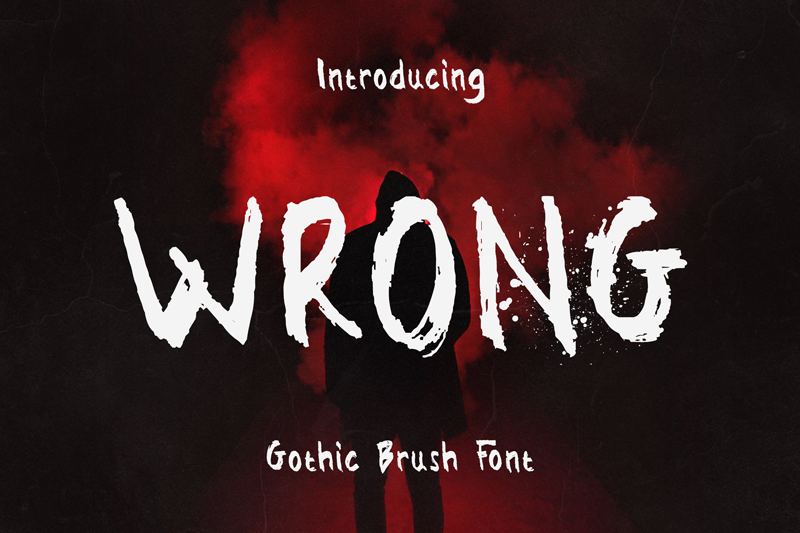
You�ve been looking for a �spine-chilling� font? One which will provide your works, clients or whatever with an instant feel of spook with brush style? This Wrong gothic brush font is everything which you�ve been dreaming of and much more. It doesn�t matter if you�re creating Game Horror, T-Shirts or crafts which are meant to be scary � this font will provide any project with extra spook, gothic, brush, fright and feels. Full Version Download Here : https://typefactory.co/product/wrong-gothic-brush-font/ https://www.creativefabrica.com/product/wrong-6/ref/501262/ |